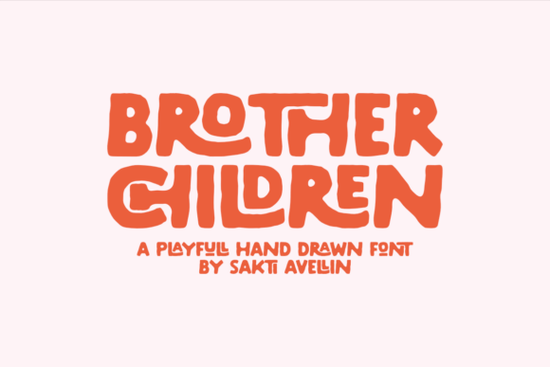
When it comes to adding a touch of whimsy and playfulness to your designs, the Brother Children Font is a fantastic choice. This hand-crafted font is designed to bring warmth and a fun, contemporary retro vibe to any project. Whether you're working on children's branding, holiday wares, or simply want to add a unique, handmade feel to your designs, Brother Children can help you achieve that.
What Makes Brother Children Font Stand Out?
The Brother Children Font stands out with its bold, unique letterforms and an enchanting irregular baseline. These features give the typeface an organic, authentic feel that embodies the uninhibited spirit of youth. The font's outstanding readability and playful, chunky retro look make it perfect for a wide range of creative projects.
Perfect for Kids' Branding and More
One of the key strengths of the Brother Children Font is its versatility. It’s ideal for enhancing children’s brands, developing holiday wares, and showcasing your artistic flair. For instance, you can use it to create eye-catching school emblems, playground symbols, and cheerful classroom adornments. Additionally, it works well for designing kids’ t-shirts, tote bags, mugs, hats, and snack packaging.
Designing Educational Materials
Educational materials often benefit from fonts that are both engaging and easy to read. The Brother Children Font fits this bill perfectly. Use it for creating themed casual wear, baby product branding, and educational toy packaging. It also adds a charming touch to storybook titles, birthday greetings, inspirational stickers, desk calendars, and journal creations.
Comparing with Other Display Fonts
While the Brother Children Font is a standout choice, it’s always good to know how it compares with other popular display fonts. For example, the Varsity College Sporty Bundle offers a more athletic and energetic feel, making it great for sports-related designs. On the other hand, the Cute Teacher Font provides a softer, more delicate touch, which is perfect for educational and feminine-themed projects.
Using Brother Children for Holiday Wares
Holiday wares are a great way to showcase the versatility of the Brother Children Font. Its playful and inviting nature makes it ideal for creating festive designs. You can use it for holiday-themed t-shirts, mugs, and even custom gift tags. For a more specific holiday, like Halloween, you might consider using the Halloween Font, which has a spookier, more seasonal feel.
Tips for Using Brother Children in Your Designs
- Combine with Simple Graphics: Pair the Brother Children Font with simple, clean graphics to let the font’s playful nature shine through.
- Vary Text Sizes: Experiment with different text sizes to create a dynamic and visually interesting layout.
- Use Color Wisely: Choose colors that complement the font’s playful vibe, such as bright, bold hues or pastel shades.
- Test Readability: Ensure that the font remains readable, especially when used in smaller sizes or on different backgrounds.
Practical Checklist for Using Brother Children Font
- Choose Your Project: Decide on the type of project you want to use the Brother Children Font for, such as a children’s t-shirt or a classroom decoration.
- Select Complementary Graphics: Pick graphics that complement the font’s playful and inviting style.
- Experiment with Colors: Test different color combinations to see which ones best highlight the font’s unique qualities.
- Review and Adjust: Review your design and make any necessary adjustments to ensure the font is both visually appealing and readable.
- Finalize and Share: Once you’re happy with your design, finalize it and share it with your audience.